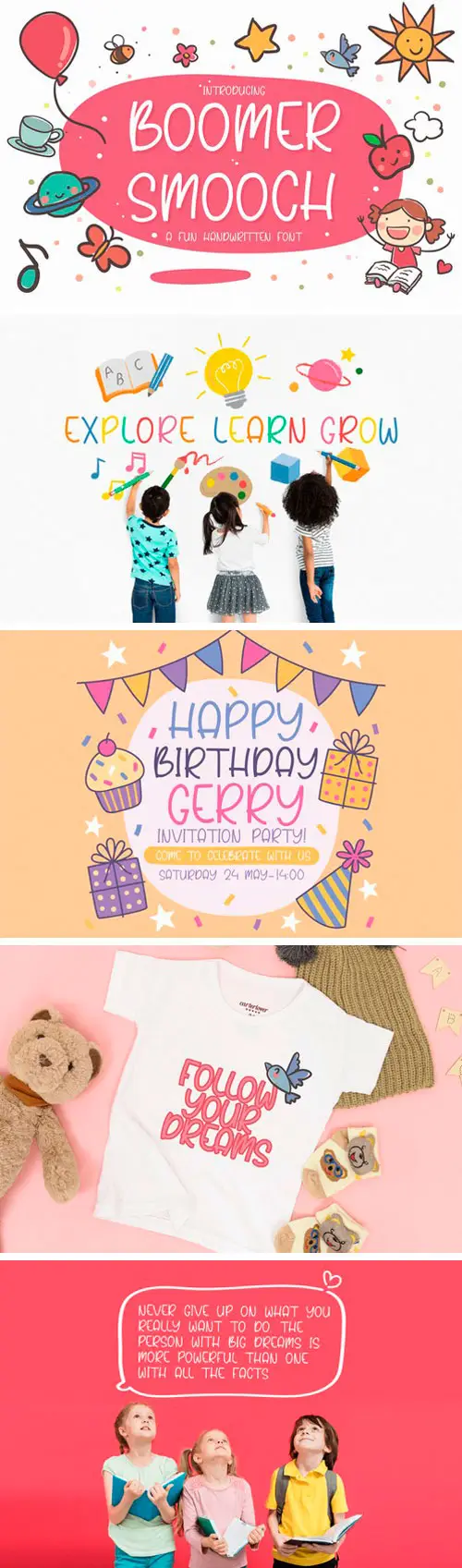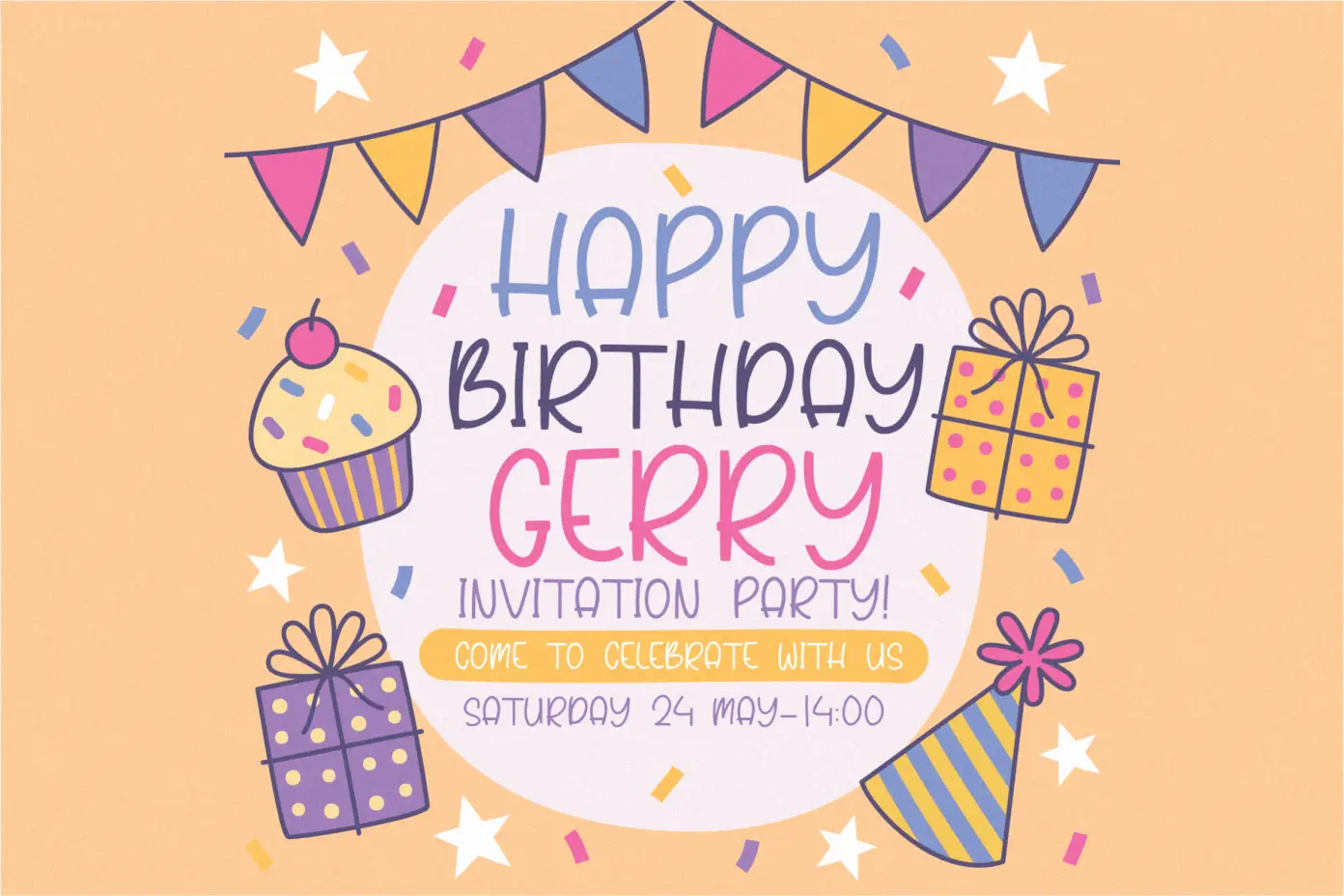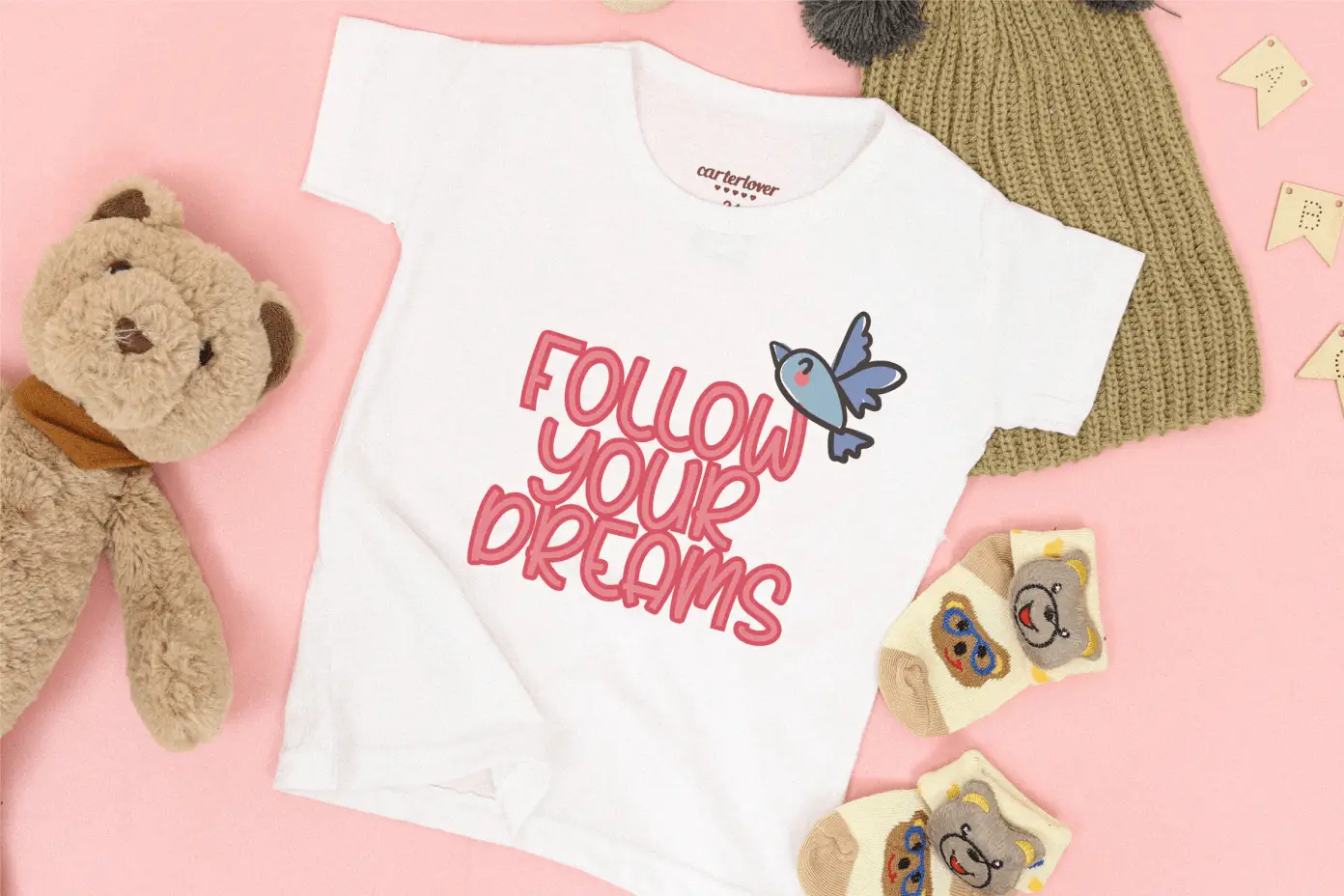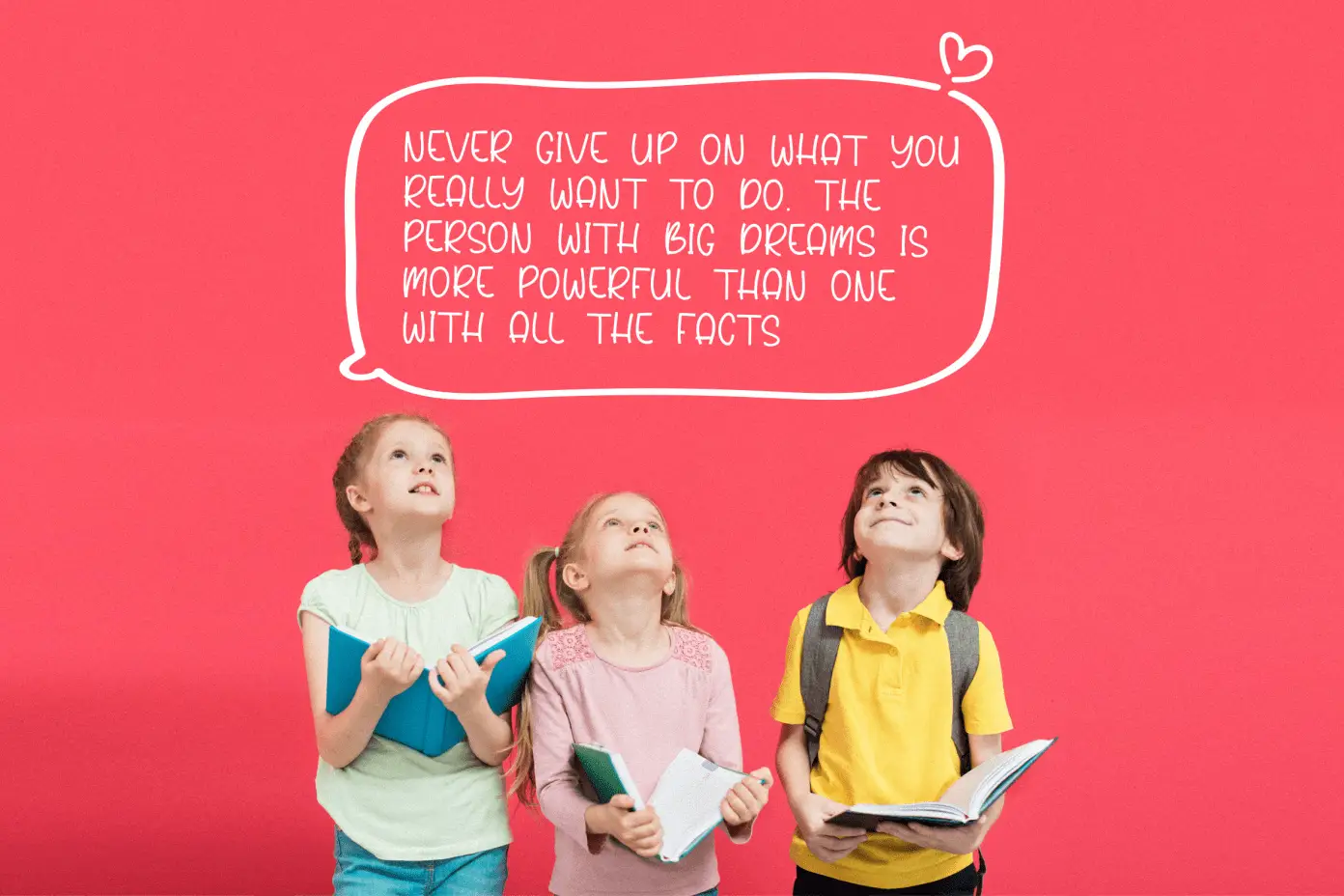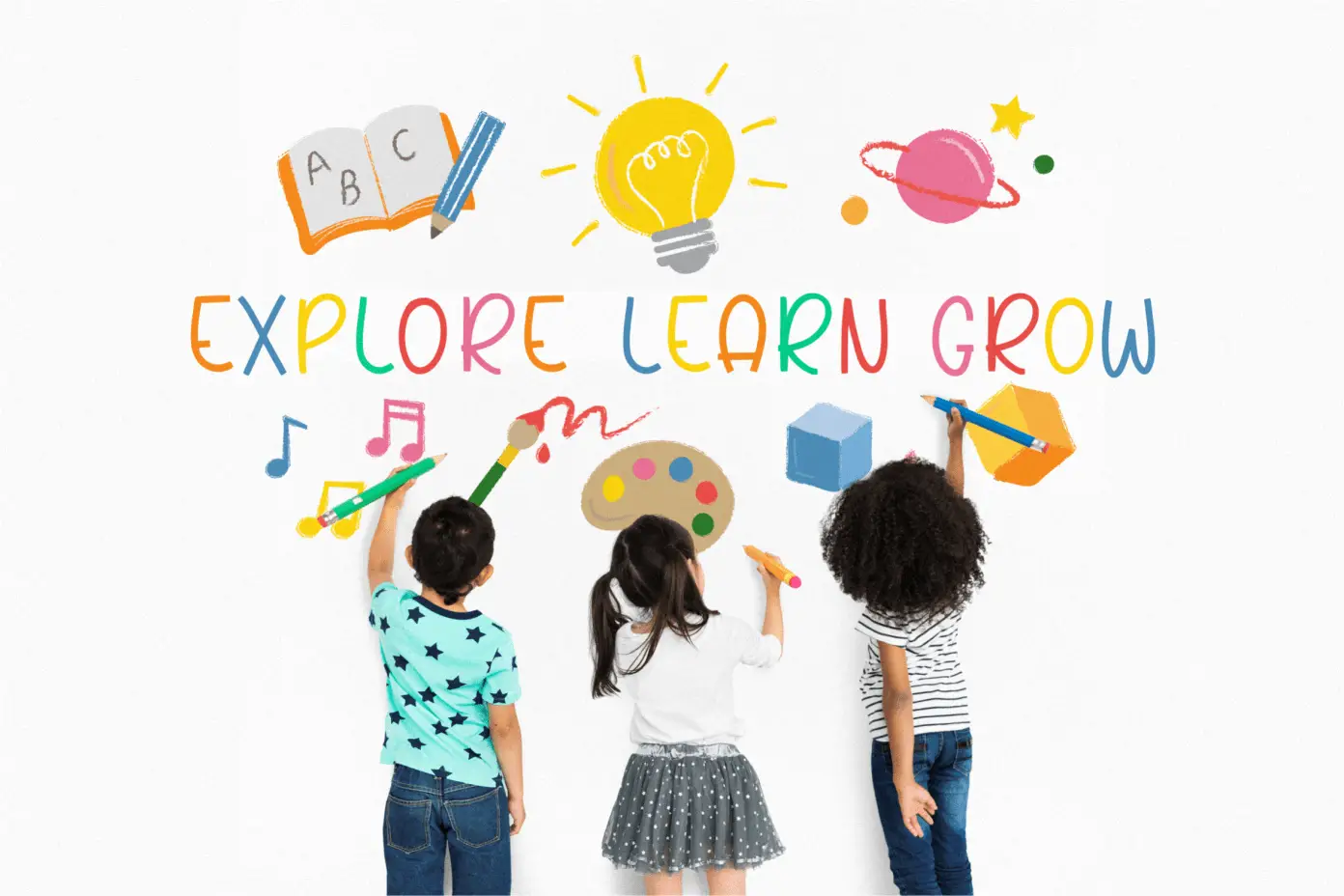
The Boomer Smooch Display Font is a charming and playful typeface designed to add a unique flair to your projects. With its bold and expressive style, this font is perfect for creating eye-catching headlines, logos, and branding materials.
- Distinctive display font style
- Character set includes uppercase, lowercase, numbers, and special characters
Ideal for branding, promotional materials, posters, and social media graphics. Use this font to make your designs stand out with its playful and bold character.